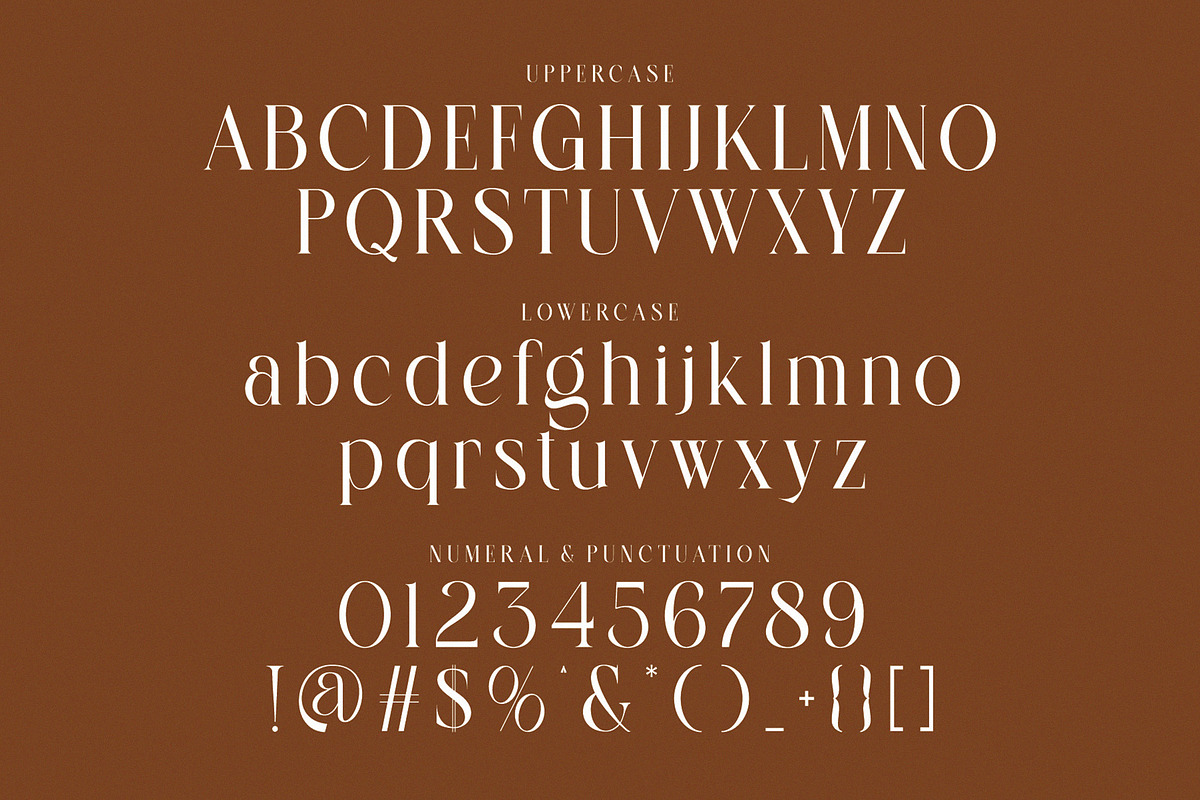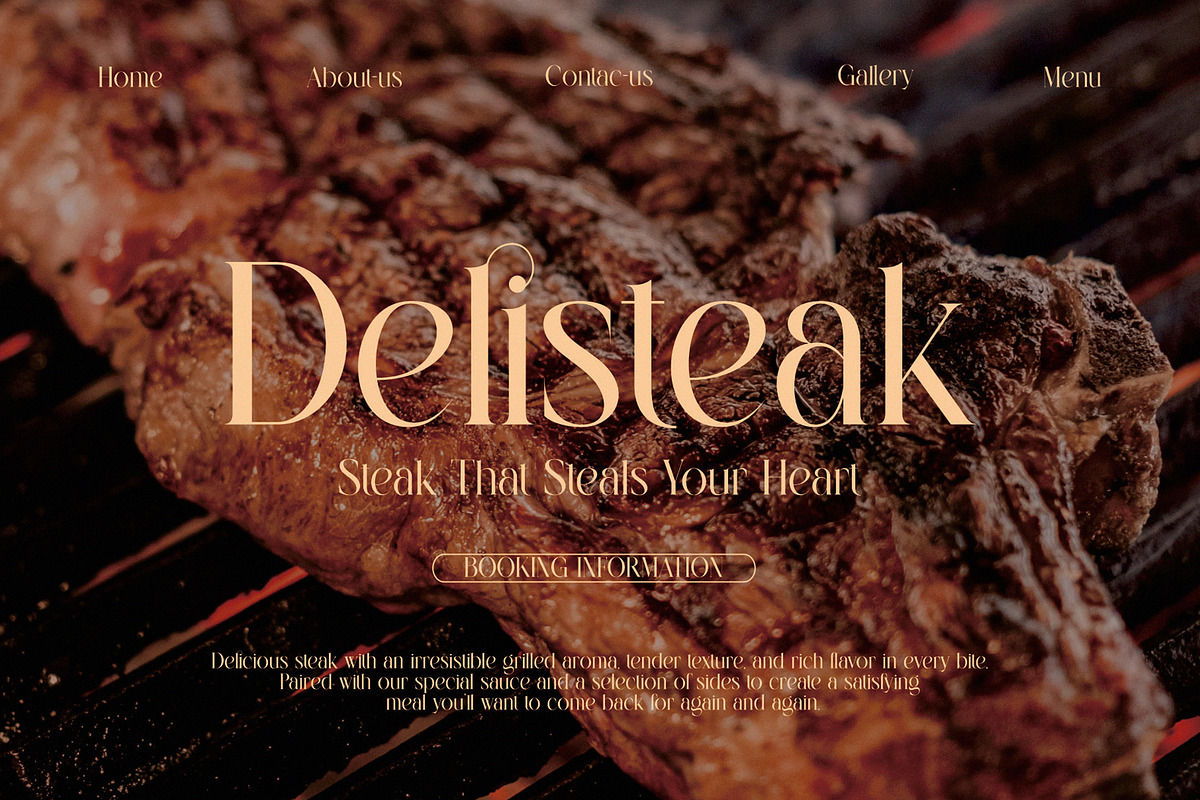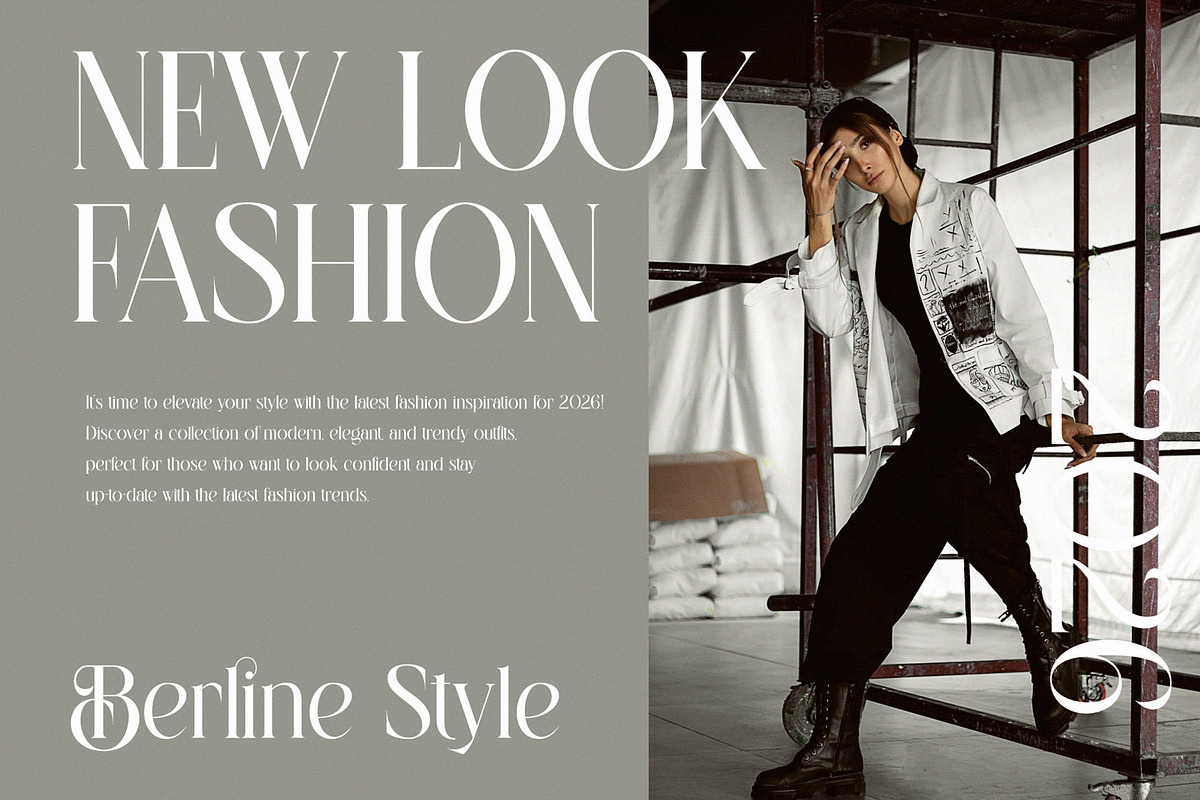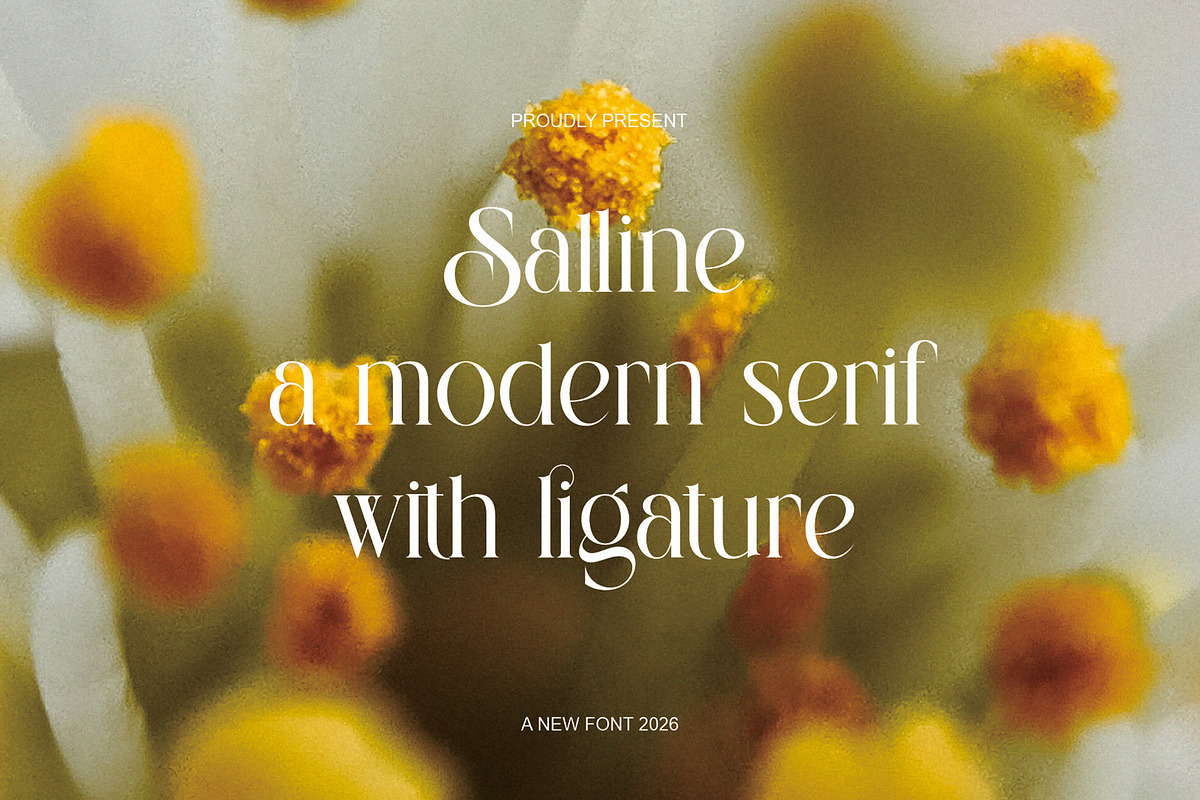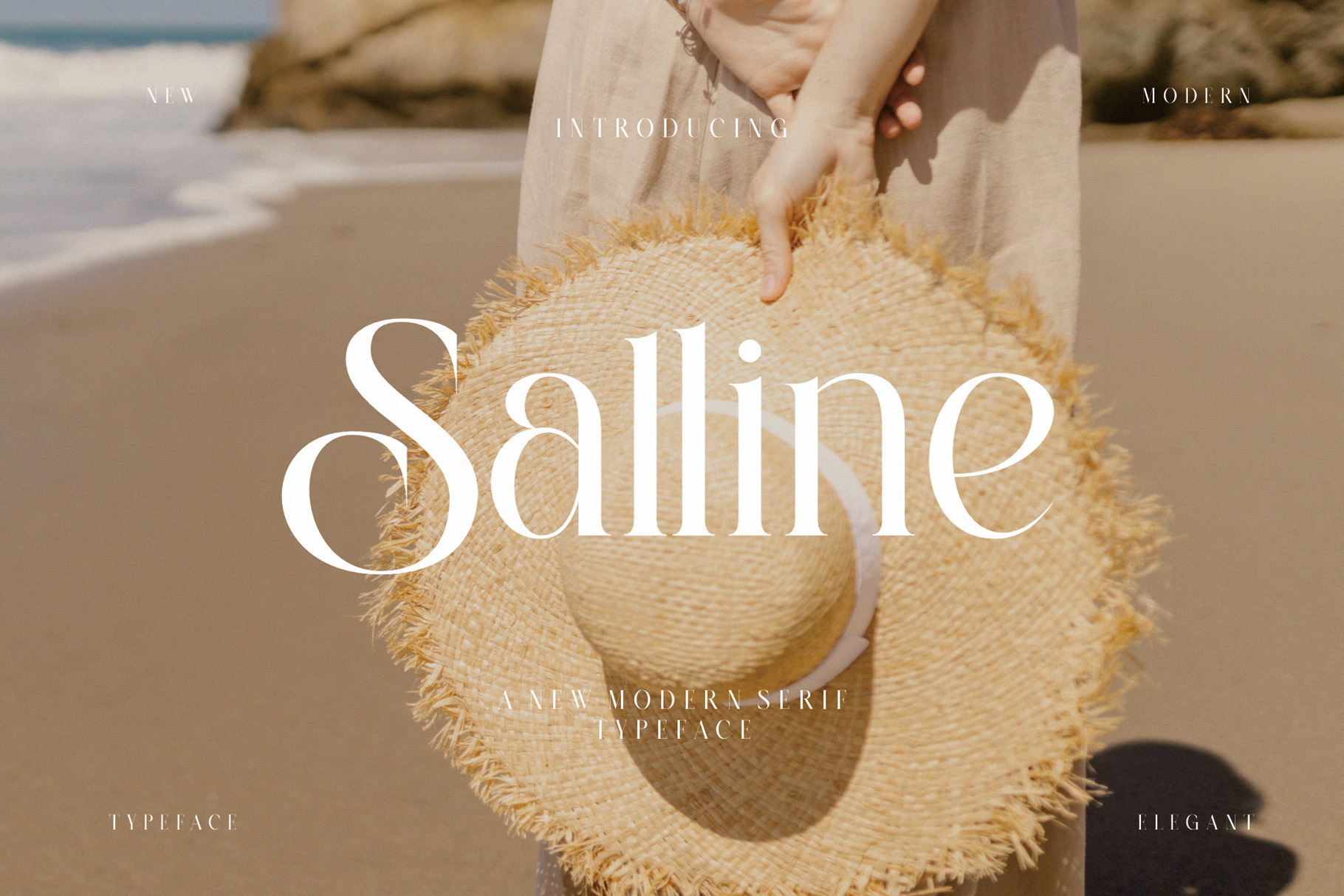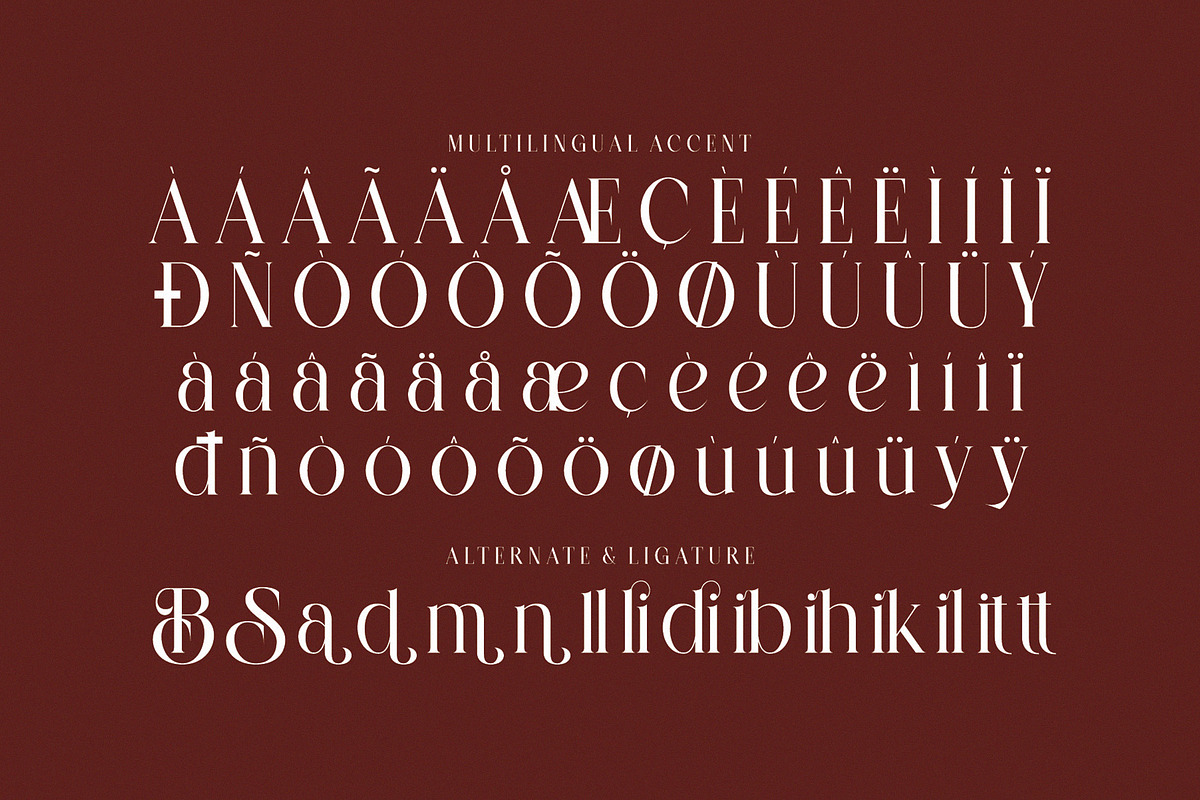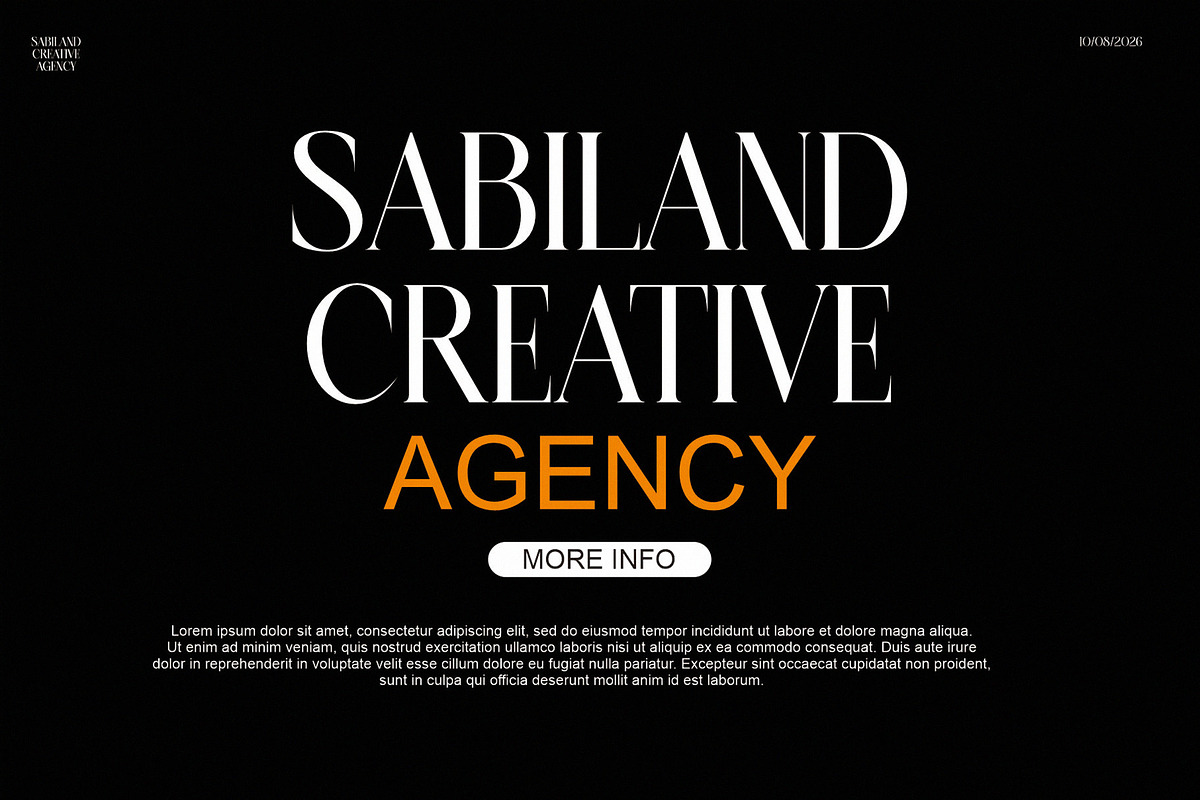
SALLINE — Modern Serif Typeface
Salline is a sophisticated and elegant modern serif typeface created for designers who love refined typography with a luxurious and contemporary feel.
Featuring high-contrast strokes, graceful curves, distinctive letterforms, elegant ligatures, and stylish alternates, Salline brings a fashionable editorial character to every design. Its combination of classic serif details and modern proportions makes it both timeless and versatile.
Salline is perfect for creating luxury branding, fashion identities, editorial designs, magazine covers, beauty products, logos, packaging, wedding invitations, posters, social media content, photography, and stylish headlines.
With its elegant and expressive appearance, Salline allows you to create designs that feel premium, feminine, sophisticated, and effortlessly stylish.